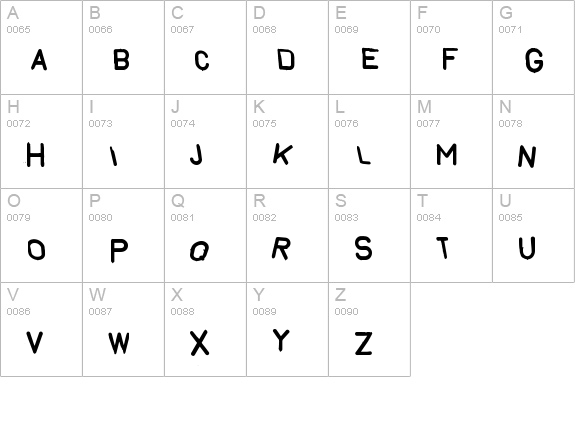
Rip Font Details
Rip font is a striking and bold typeface that exudes a sense of power and strength. Its sharp edges and unique design make it perfect for creating eye-catching headlines, posters, and branding materials. The angular letters give Rip font a modern and edgy look, making it stand out from the crowd. The best part about Rip font is that it is completely free to download. You can easily access this dynamic font at FontsMarket.com, where you can find a wide range of high-quality fonts for all your design needs. Whether you're working on a personal project or a professional campaign, Rip font is sure to make a bold statement and leave a lasting impression. Download it today and unleash your creativity with this powerful and free typeface!